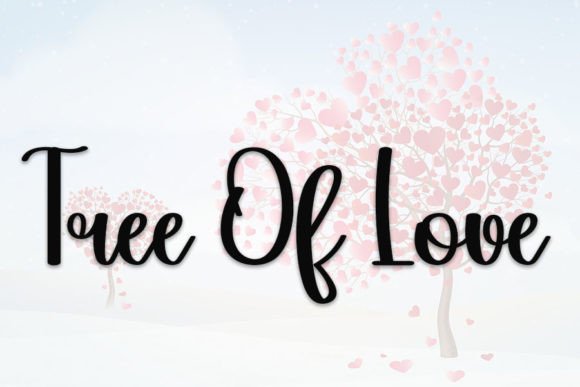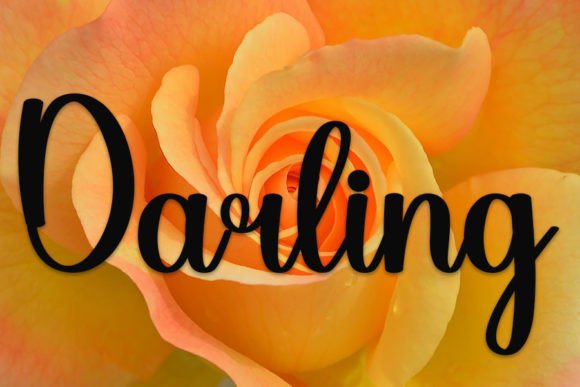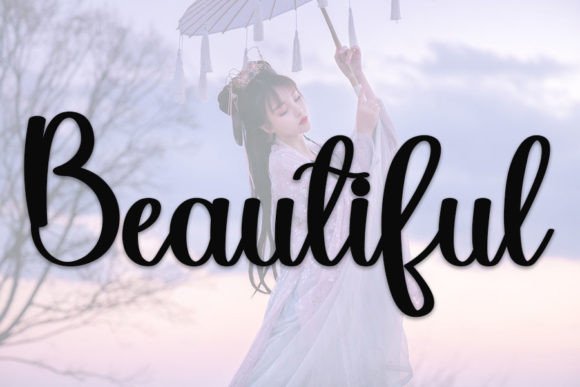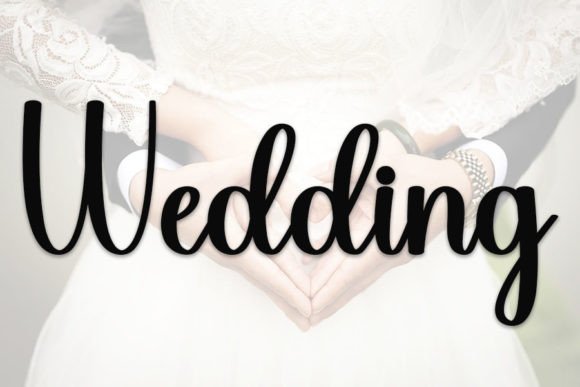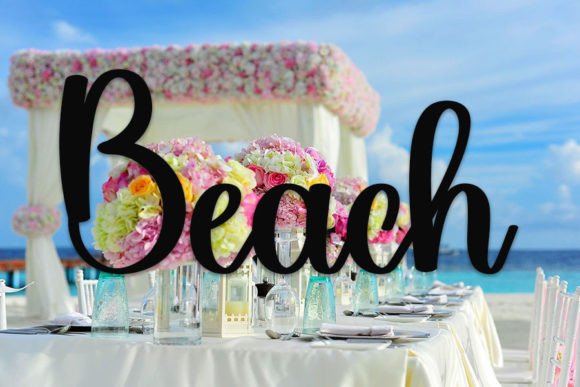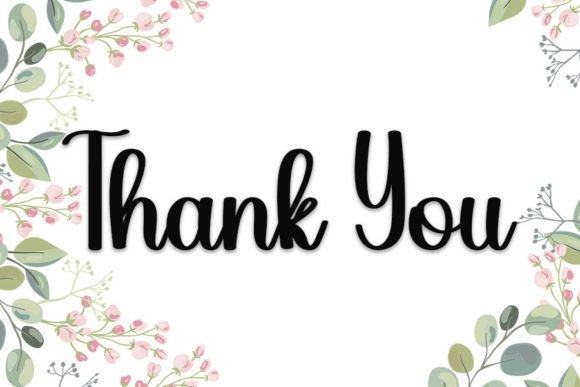
Discover the Charm of Dearest Font: Elevate Your Designs with Elegance
Are you on the hunt for a font that exudes elegance, sophistication, and a touch of whimsy? Look no further than Dearest Font, a stunning handwritten typeface that is sure to capture your heart. With its unique blend of classic charm and modern flair, Dearest is the perfect addition to any design project. In this article, we’ll dive into the world of Dearest Font, exploring its features, benefits, and uses, as well as provide tips and inspiration for incorporating it into your work.
What is Dearest Font?
Dearest Font is a beautiful, handwritten typeface characterized by its elegant touch and timeless style. This neat and beautiful font is designed to add a touch of sophistication and whimsy to any project, making it perfect for designers, crafters, and anyone looking to create stunning visual content. With its incredibly distinct style, Dearest Font is sure to make your designs stand out from the crowd.
Key Features of Dearest Font
- Elegant and Refined: Dearest Font boasts an elegant and refined aesthetic, perfect for creating sophisticated designs that exude luxury and style.
- Handwritten with Love: This beautiful handwritten font is crafted with love and care, giving it a unique and personal touch that sets it apart from more traditional typefaces.
- Timeless Style: Dearest Font features a timeless style that will never go out of fashion, making it a valuable addition to your font collection.
- Versatile: Whether you’re working on a branding project, creating social media graphics, or designing a website, Dearest Font is versatile enough to adapt to any design need.
Benefits of Using Dearest Font
So why choose Dearest Font for your next project? Here are just a few benefits of using this stunning typeface:
- Adds Emotional Connection: The personal and handwritten nature of Dearest Font helps to create an emotional connection with your audience, making your designs more relatable and engaging.
- Enhances Brand Identity: With its unique and elegant style, Dearest Font can help to enhance your brand identity and set you apart from competitors.
- Easy to Read: Despite its elegant and refined aesthetic, Dearest Font remains easy to read, making it perfect for body text and longer design projects.
- Perfect for Crafting: Dearest Font is also perfect for crafters, providing a beautiful and elegant typeface for handmade cards, scrapbooking, and other paper crafts.
Using Dearest Font in Your Designs
So, how can you incorporate Dearest Font into your designs? Here are a few ideas to get you started:
- Branding and Logos: Use Dearest Font to create stunning brand identities, including logos, business cards, and letterheads.
- Social Media Graphics: Add a touch of elegance to your social media graphics, including Facebook posts, Instagram stories, and Twitter headers.
- Web Design: Use Dearest Font to create beautiful website headers, titles, and body text, adding a touch of sophistication to your online presence.
- Print Design: Dearest Font is perfect for print design, including brochures, flyers, posters, and more.
Tips and Tricks for Working with Dearest Font
To get the most out of Dearest Font, here are a few tips and tricks to keep in mind:
- Pair with Other Fonts: Experiment with pairing Dearest Font with other fonts to create a unique and visually appealing design.
- Adjust Font Size: Play around with different font sizes to create visual hierarchy and add emphasis to key design elements.
- Use in Combination with Images: Combine Dearest Font with beautiful images to create stunning visual content that tells a story.
In conclusion, Dearest Font is a beautiful and elegant handwritten typeface that is sure to elevate your designs to the next level. With its timeless style, versatility, and emotional connection, Dearest Font is the perfect addition to any design project. Whether you’re a designer, crafter, or simply someone looking to create stunning visual content, Dearest Font is a must-have font that will help you to create spectacular designs that will leave a lasting impression.